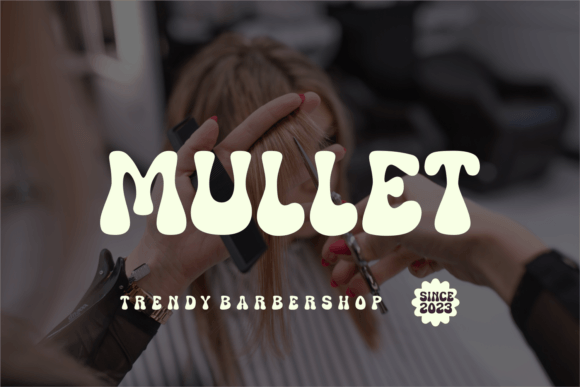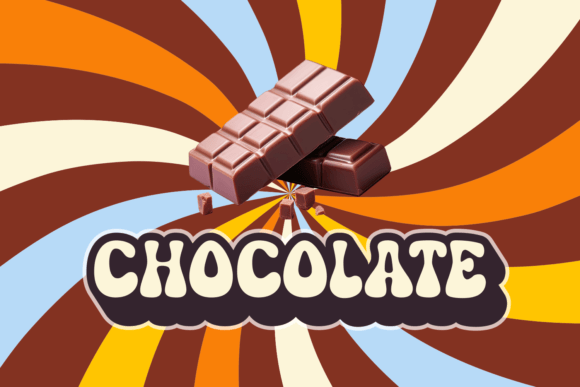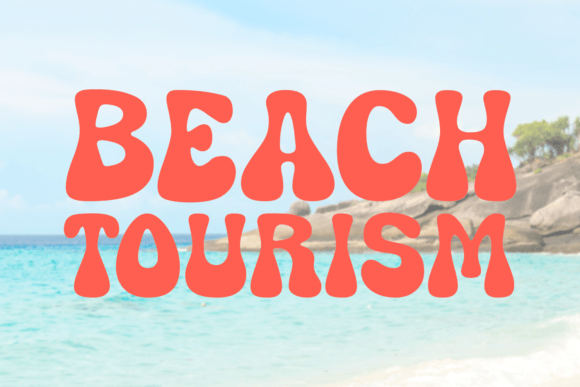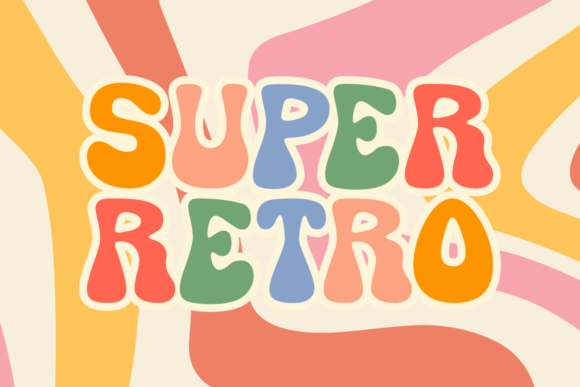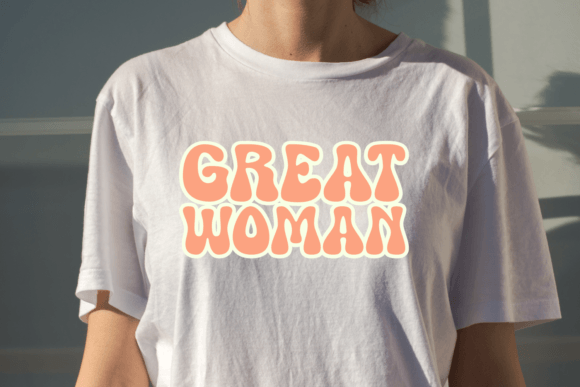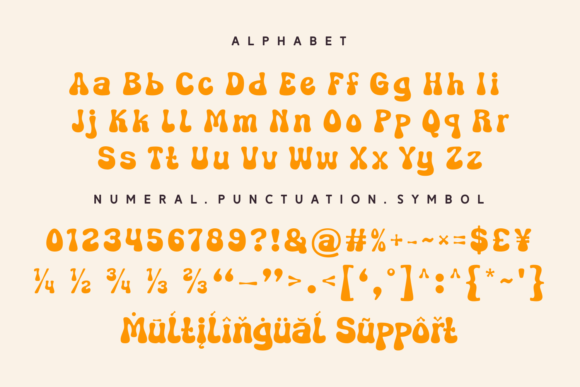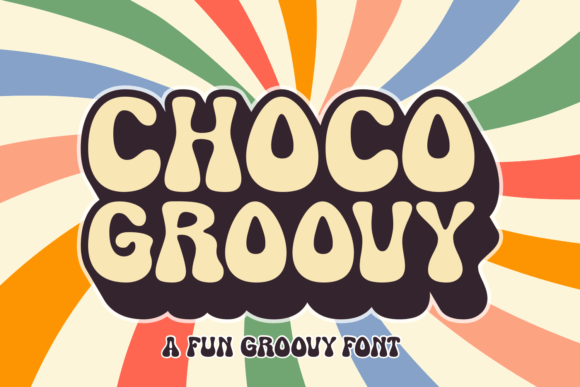
Unleash Your Creativity with Choco Groovy Font: A Collection of Captivating Display Fonts
Are you a designer, crafter, or DIY enthusiast looking to add a touch of personality to your projects? Look no further than the Choco Groovy Font collection! Our diverse range of intricately designed fonts is sure to inspire your creativity and take your designs to the next level. From retro and groovy fonts that bring back the charm of the 70s and 80s to wavy fonts that exude an undulating rhythm, we have the perfect font to match your unique style.
The Perfect Font for Every Project
Whether you’re working on apparel designs, book covers, magazine covers, or greeting cards, our Choco Groovy Fonts are designed to help you create visually stunning projects that capture the attention of your audience. Our fonts are ideal for:
- Apparel designs: Add a cute and playful accent to your T-shirts, hoodies, and other clothing items with our unique and stylish fonts.
- Book covers: Transform your book covers into visual delights with our clean and tailored fonts that are sure to grab the attention of readers.
- Magazine covers: Explore the grandeur of our fonts on magazine covers and make a lasting impression on your readers.
- Greeting cards: Add a personal touch to your greeting cards with our simple and elegant fonts that are perfect for any occasion.
A Diverse Range of Fonts to Suit Your Style
At Choco Groovy Font, we understand that every designer has their own unique style and preferences. That’s why we offer a diverse range of fonts to suit every taste and requirement. Our collection includes:
- Retro and groovy fonts: Bring back the charm of the 70s and 80s with our retro and groovy fonts that are sure to add a fun and playful touch to your designs.
- Wavy fonts: Exude an undulating rhythm with our wavy fonts that are perfect for creating eye-catching designs.
- Simple fonts: Build elegance and efficiency into your designs with our simple and clean fonts that are perfect for any project.
- Logotype fonts: Give your logo a distinct face with our logotype fonts that are designed to make your brand stand out.
Why Choose Choco Groovy Font?
So why choose Choco Groovy Font over other font collections? Here are just a few reasons why our fonts stand out:
- Unique and stylish designs: Our fonts are intricately designed to add a touch of personality to your projects.
- High-quality fonts: Our fonts are of the highest quality, ensuring that your designs look professional and polished.
- Ease of use: Our fonts are easy to use and can be seamlessly integrated into your designs.
With Choco Groovy Font, you’re just a few clicks away from unleashing your creativity and taking your designs to the next level. Browse our collection of captivating display fonts today and discover the perfect font to match your unique style. Whether you’re a designer, crafter, or DIY enthusiast, our fonts are sure to inspire you to create something amazing.
So what are you waiting for? Explore our collection of Choco Groovy Fonts today and get ready to:
- Transform your book covers into visual delights
- Seamlessly weave your brand’s magic into the hearts of your customers
- Add a cute and playful accent to your apparel designs
- Create stunning magazine covers that grab attention
- Infuse a unique vibe into your greeting cards and more!